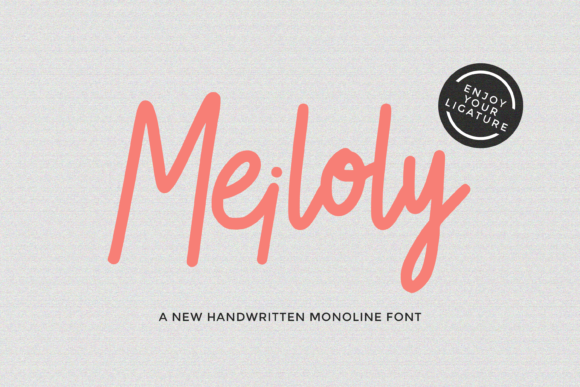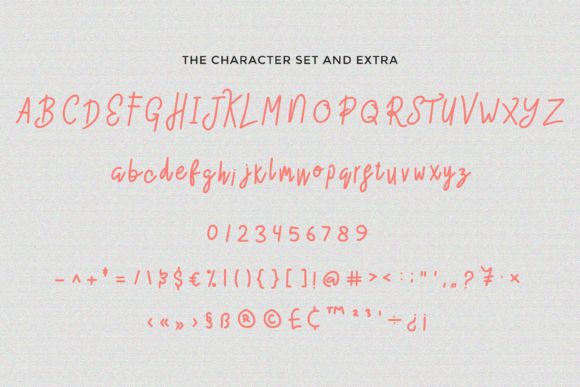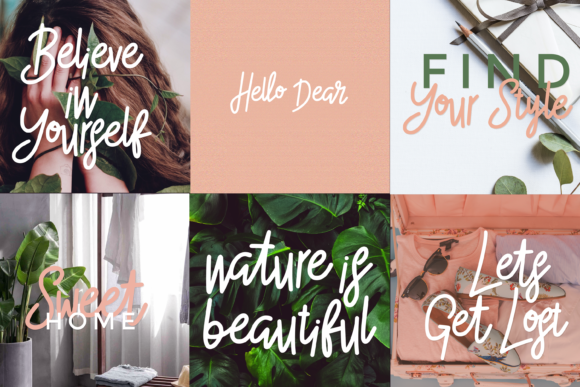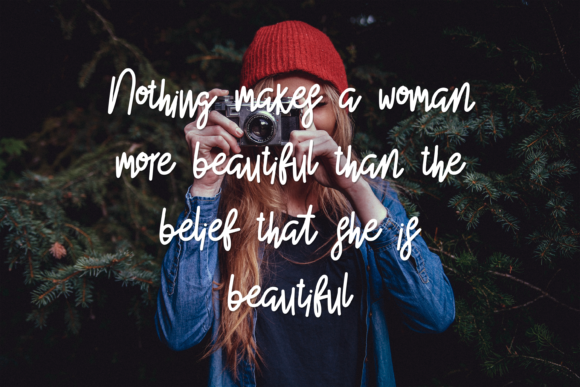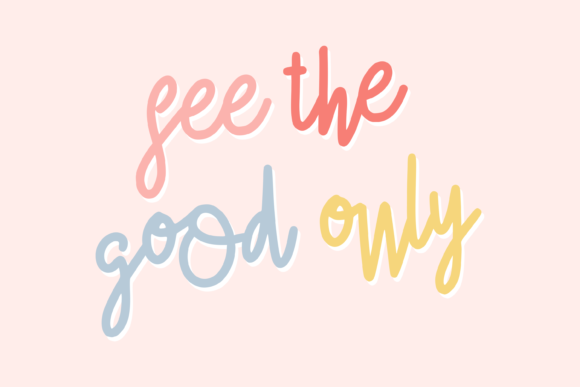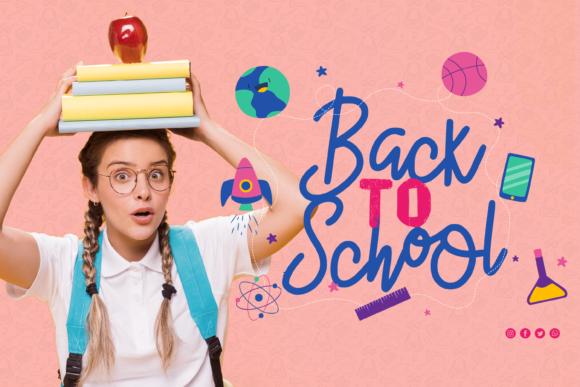
Meiloly Font
About Meiloly Font
Meiloly is a sweet brushed handwritten font.
It is suitable for almost any graphic designs such as logo, branding materials, business cards, gift cards, t-shirt, cover, thumbnail, print, poster, photography, quote and so much more.